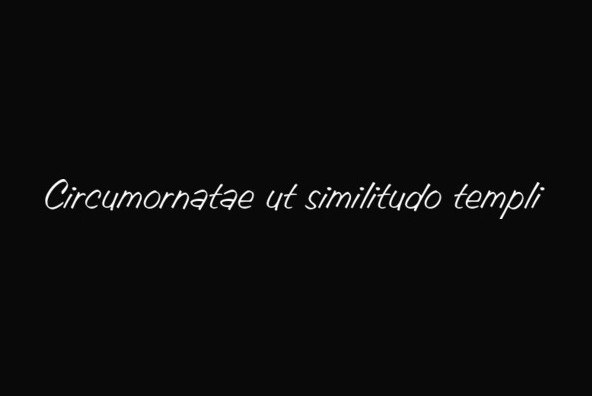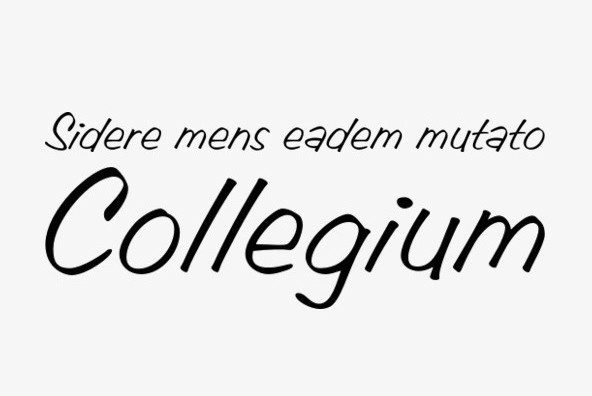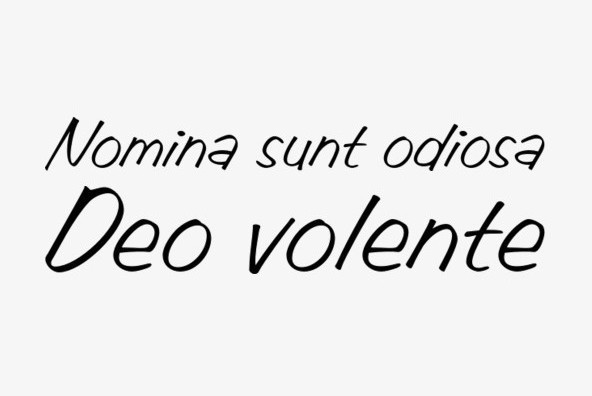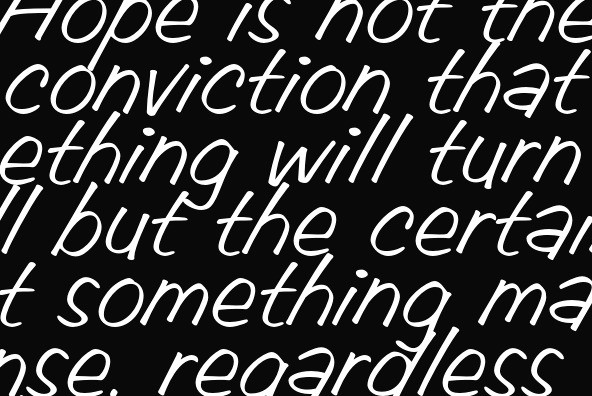
Dancer was one of the first fonts to join Filmotype’s Casuals category in the early 1950s as its ‘house’ sho-card speed script. It’s wonderfully readable with a generous ‘x-height’ with a friendly informal nature and timeless script look.
Filmotype Dancer was developed from the original font filmstrips and includes a full international character compliment, automatic fractionals, ordinals, and a host of alternate characters in dynamic OpenType format.